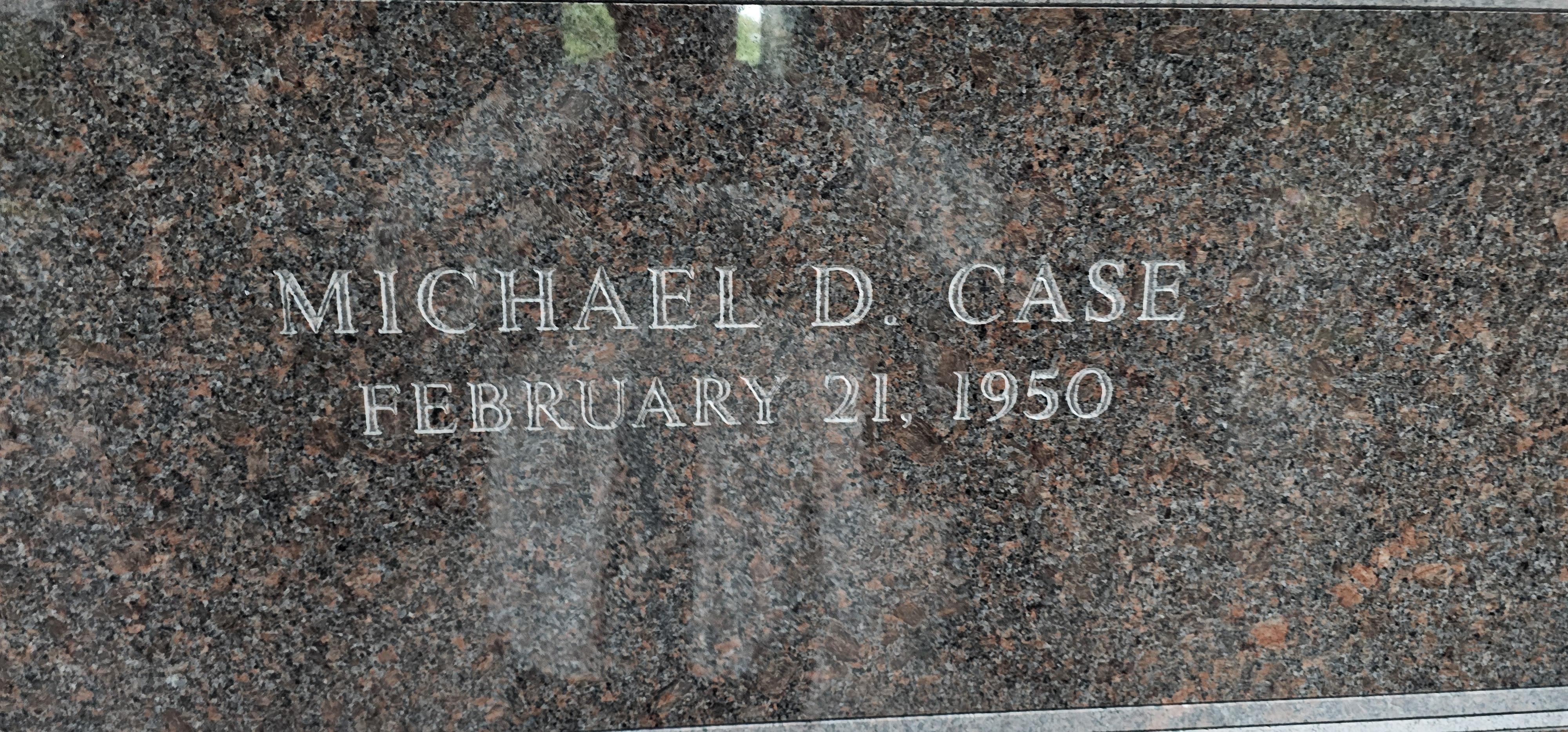
Super stumped. I’ve exhausted all leads.
That flat top "1" and round zero....
Good evening, this is a custom Cold Spring Granite font named Monument Times New Roman.